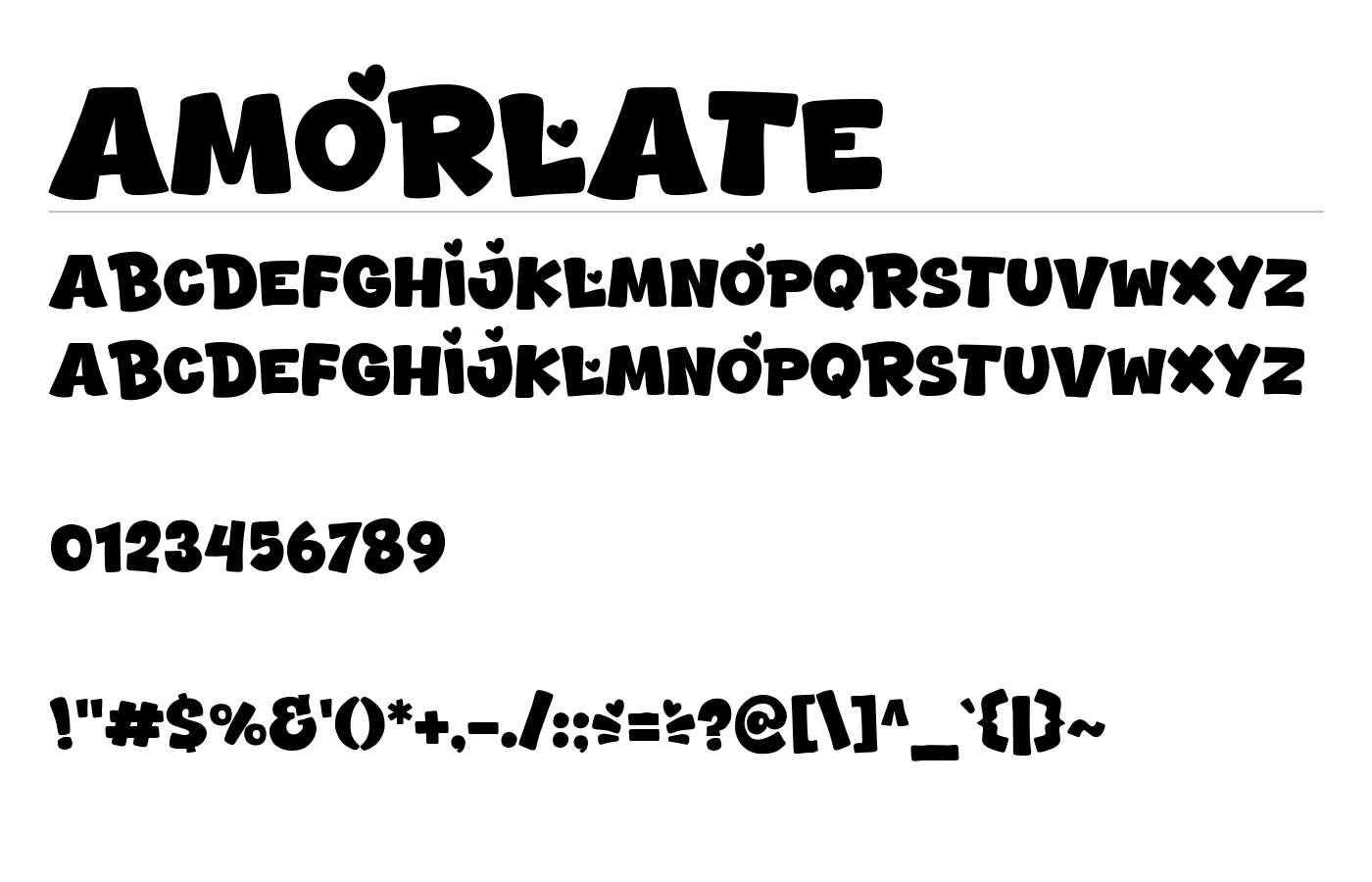
Amorlate is a bold, playful sans serif font with a chunky, friendly style that features charming heart-shaped dots above the i and j, adding a whimsical touch. Its rounded, irregular letterforms create a warm and approachable mood, making it perfect for children’s designs, casual branding, and fun headlines. This font works well where a lively, informal feel is desired, such as invitations, posters, or playful logos.
Amorlate Font
About Amorlate Font
| Font family | Amorlate Font |